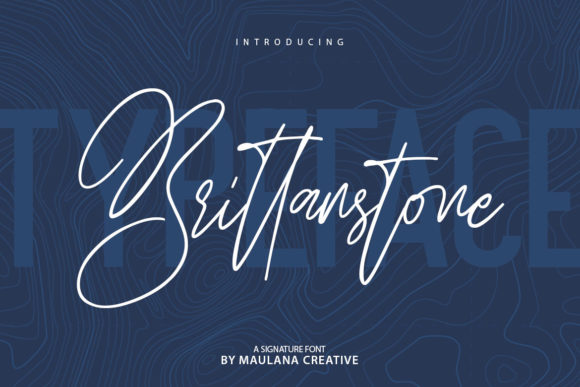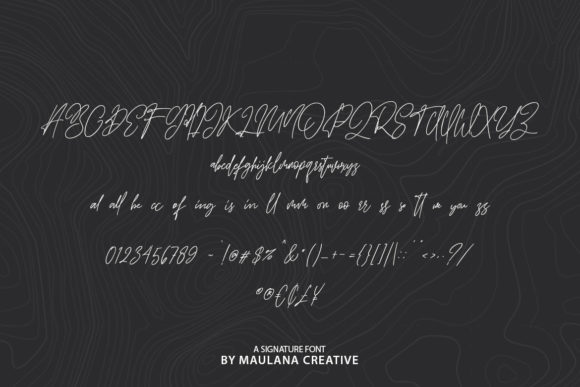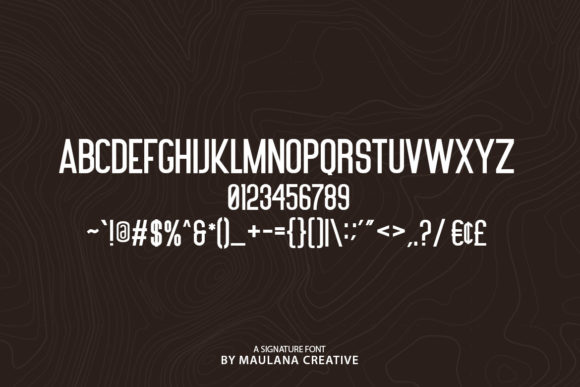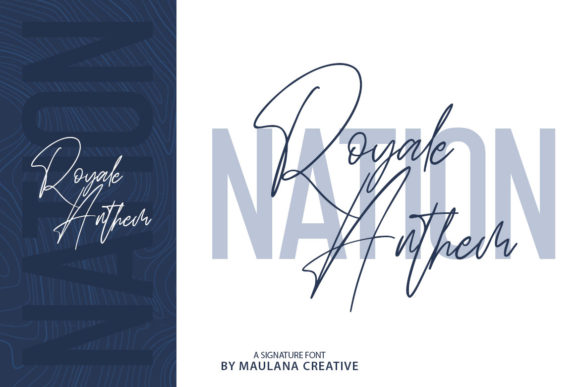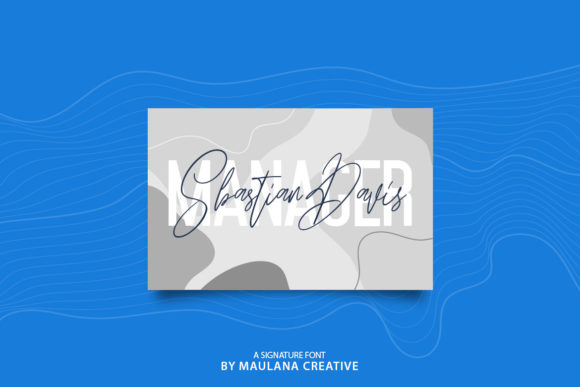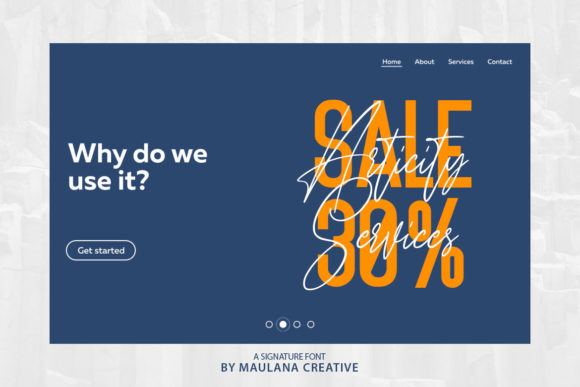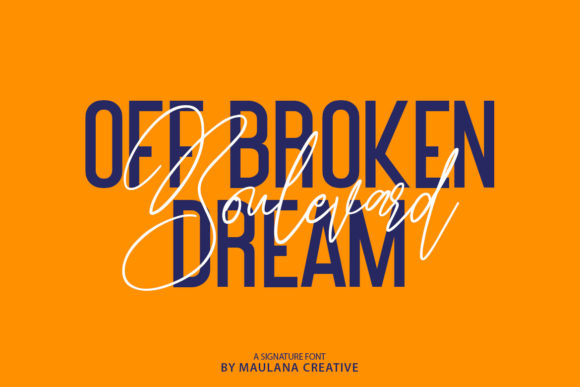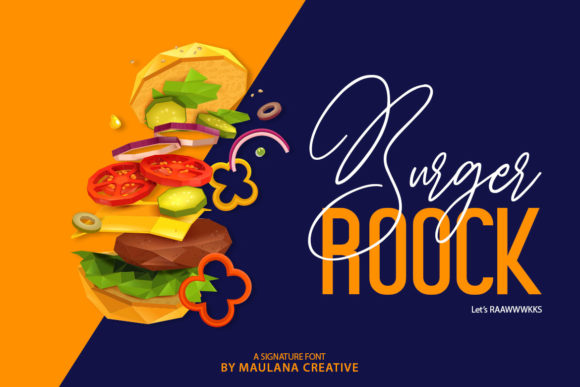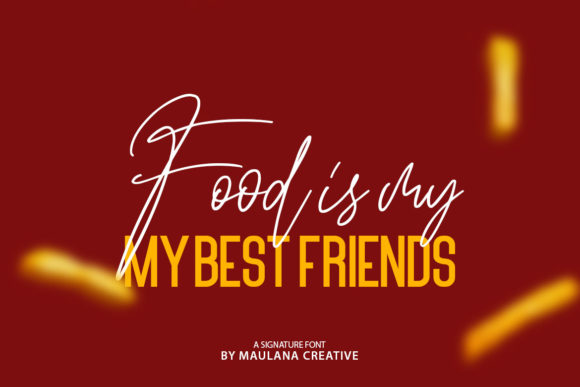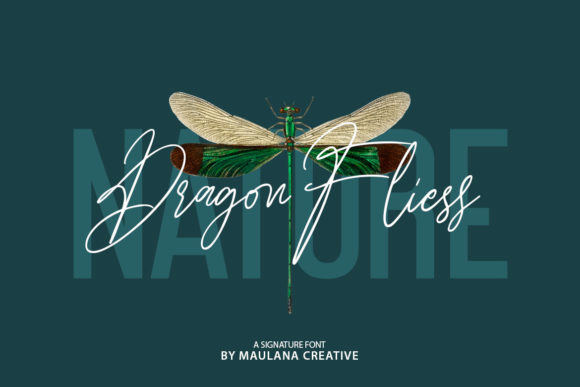
Brittanstone Duo Font
About Brittanstone Duo Font
Brittanstone feels light, elegant and authentic. This unique font duo brings together a script and a sans serif font that will create magic when combined!